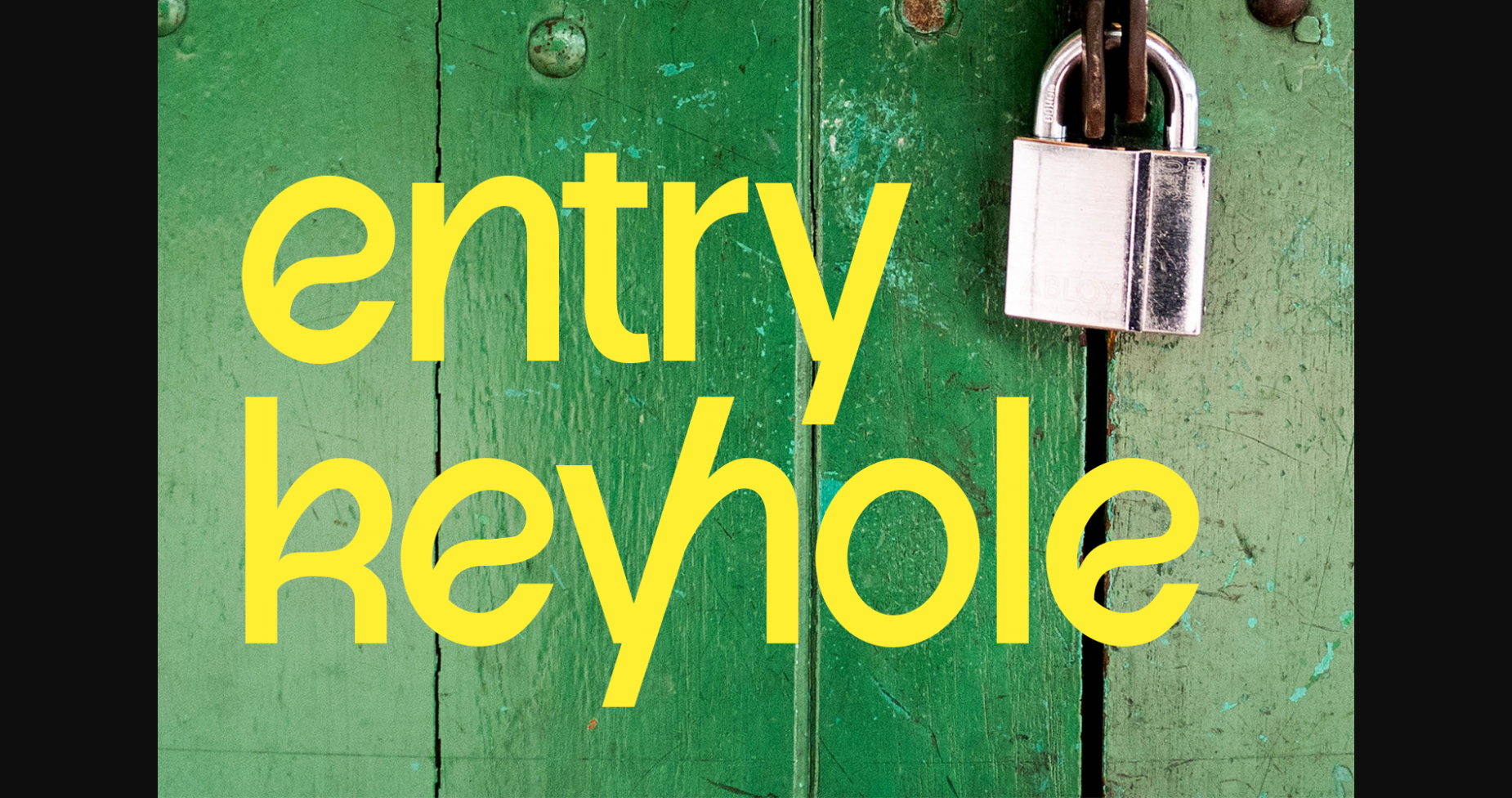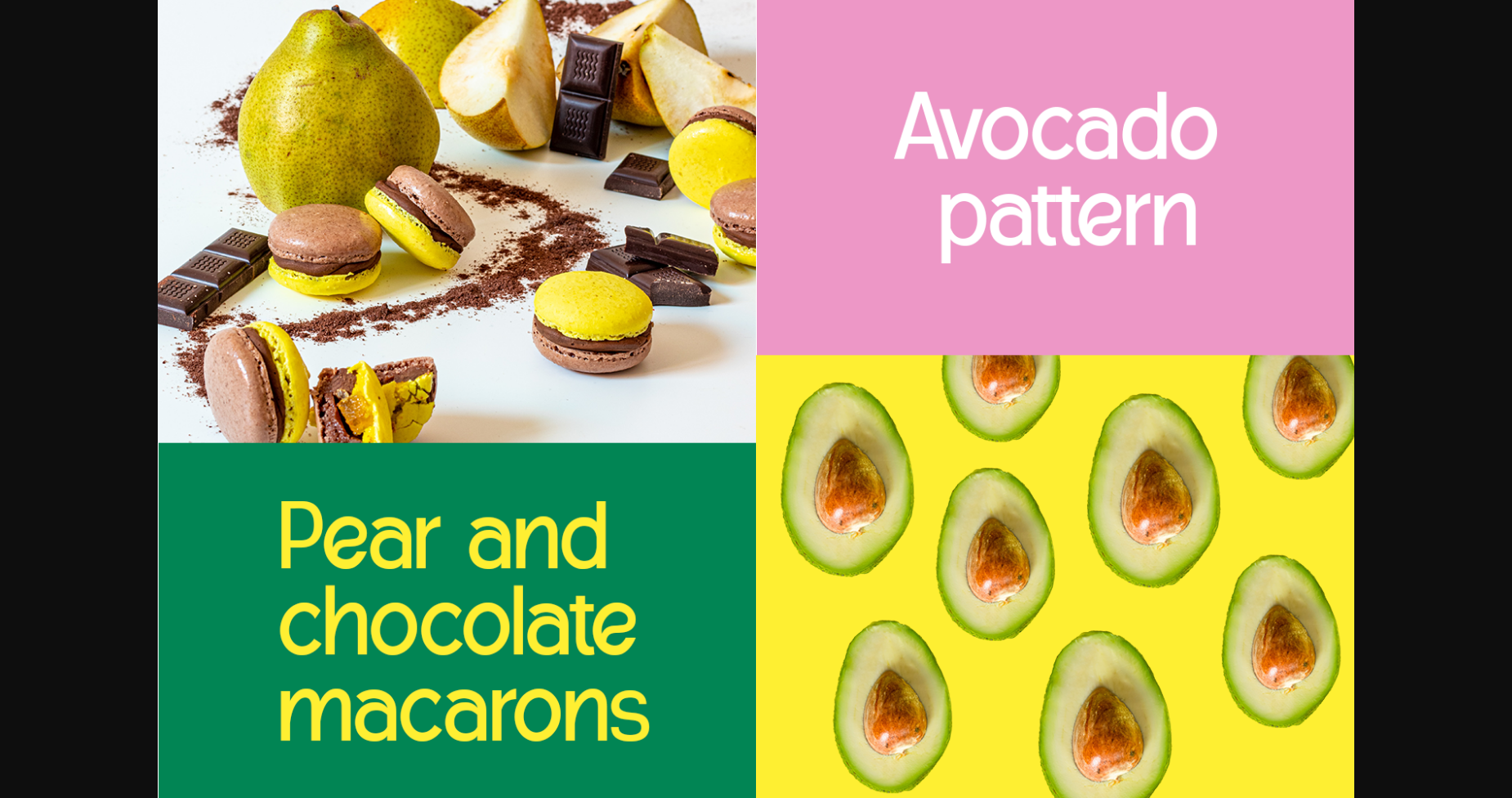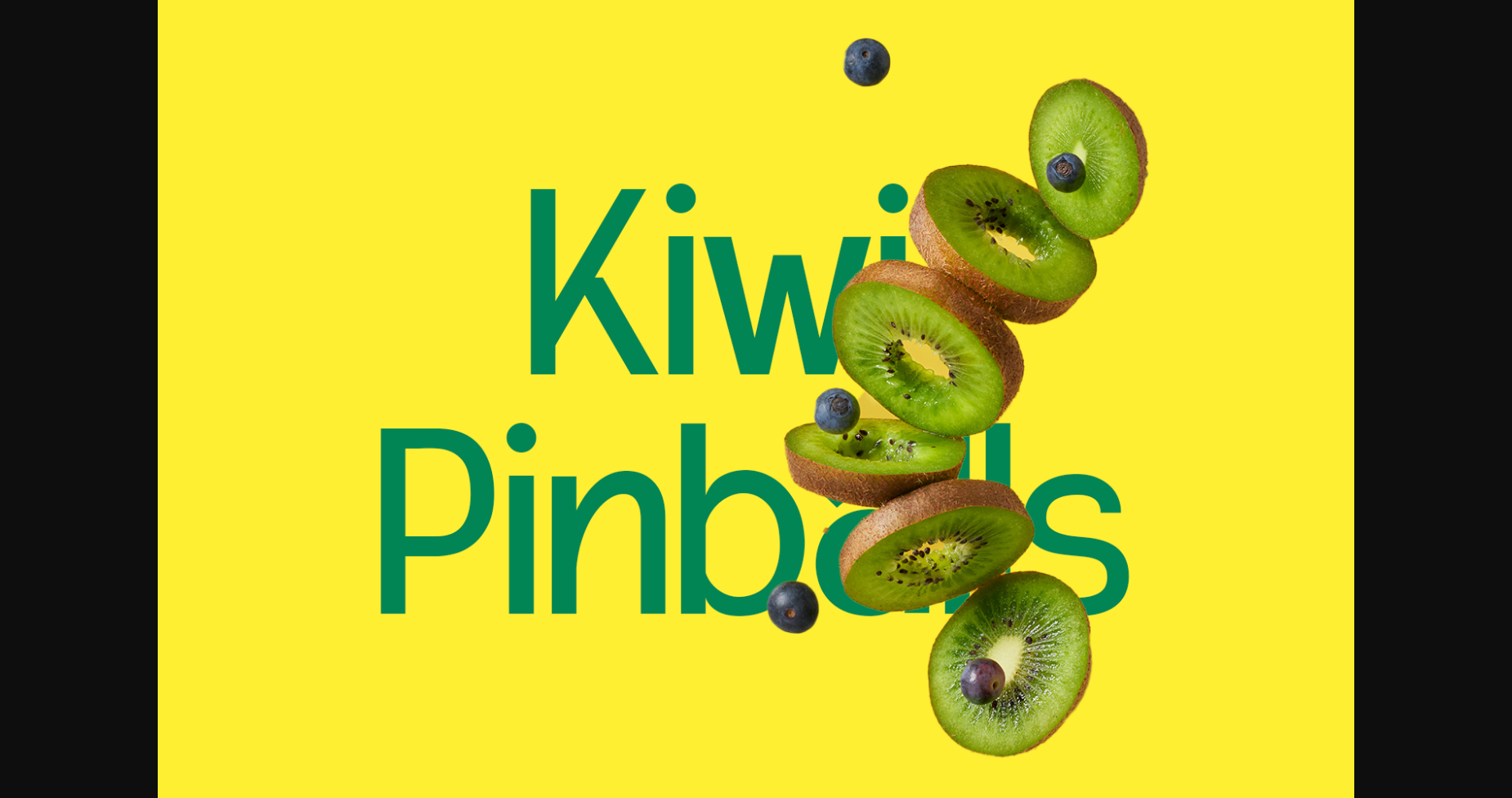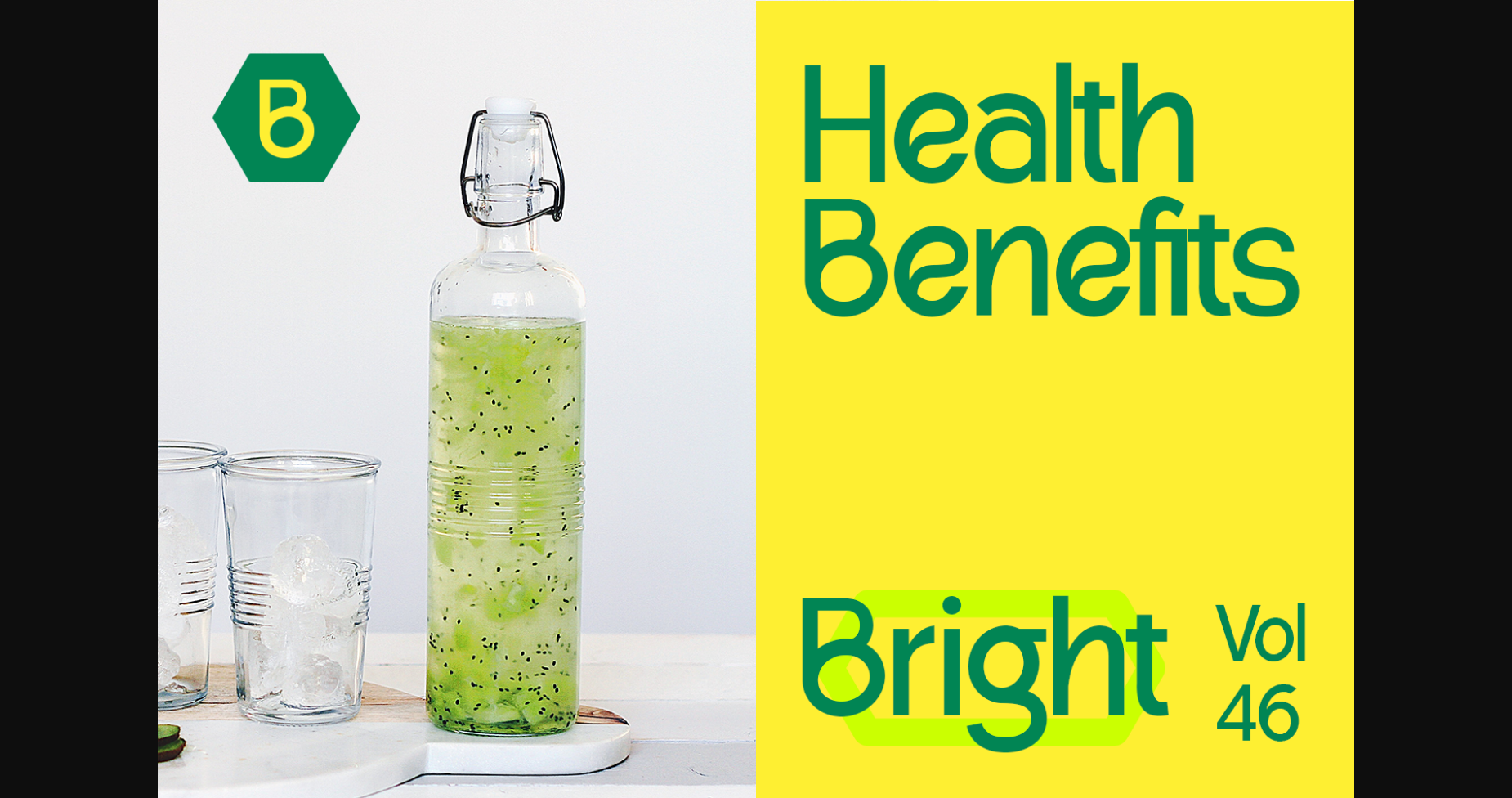
About Enrty Keyhole Font
Enrty Keyhole – Fresh sans
Introducing “Entry Keyhole,” a captivating font that combines the essence of an entryway with the intrigue of a keyhole. This font features a clean and contemporary design, evoking a sense of curiosity and unlocking endless creative possibilities for your projects. Its stylish letterforms invite viewers to enter a world of visual expression and discover the secrets hidden within.